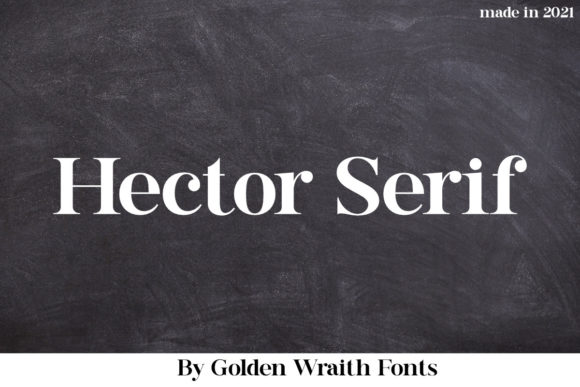
Hector Font: Elevate Your Designs with a Bold and Cool Serif
In the world of typography, fonts play a crucial role in conveying messages, setting tones, and creating visual identities. For designers and crafters, finding the perfect font can be a daunting task, but today, we’re excited to introduce you to Hector Font, a bold and cool serif font that’s sure to take your creations to the next level.
The Power of Serif Fonts
Serif fonts have been a staple in the design world for centuries, and for good reason. These classic fonts feature small lines or flourishes at the ends of the letters, which provide a sense of elegance, sophistication, and tradition. From ancient manuscripts to modern-day branding, serif fonts have been used to convey a sense of luxury, refinement, and authority.
Introducing Hector Font
Hector Font is a bold and cool serif font that’s designed to make a statement. With its strong, confident lines and sleek aesthetic, Hector is perfect for designers and crafters looking to add a touch of sophistication to their work. Whether you’re creating a logo, heading, or paragraph text, Hector Font is sure to impress.
Key Features of Hector Font
- Bold and Cool Design: Hector Font features a bold and cool design that’s perfect for making a statement.
- Serif Details: The font’s serif details add a touch of elegance and sophistication to any design.
- Highly Versatile: Hector Font can be used for a wide range of design projects, from logos and headings to paragraph text and more.
- Easily Readable: Despite its bold design, Hector Font is highly readable, making it perfect for body text and other applications where clarity is key.
Use Cases for Hector Font
Hector Font is an incredibly versatile font that can be used in a wide range of design projects. Here are just a few examples:
- Logos and Branding: Use Hector Font to create a bold and memorable logo that sets your brand apart.
- Headings and Titles: Add a touch of sophistication to your headings and titles with Hector Font’s elegant serif design.
- Packaging and Labels: Use Hector Font to create eye-catching packaging and labels that stand out on store shelves.
- Web Design: Add a touch of elegance to your website with Hector Font, perfect for headings, titles, and other design elements.
Why Choose Hector Font?
In conclusion, Hector Font is a bold and cool serif font that’s perfect for designers and crafters looking to elevate their designs. With its strong, confident lines and sleek aesthetic, Hector is sure to make a statement in any design project. Whether you’re creating a logo, heading, or paragraph text, Hector Font is a versatile and highly readable font that’s sure to deliver exceptional results. So why wait? Add Hector Font to your favorite creations today and let yourself be amazed by the outcome generated.